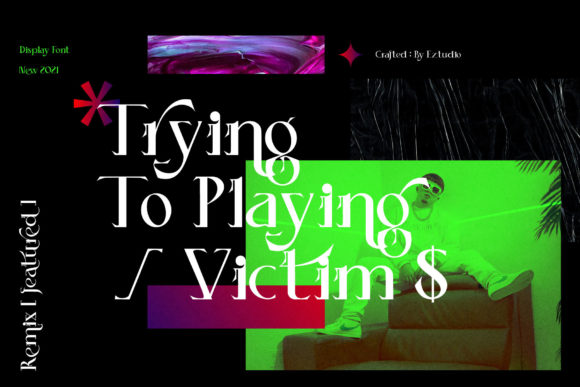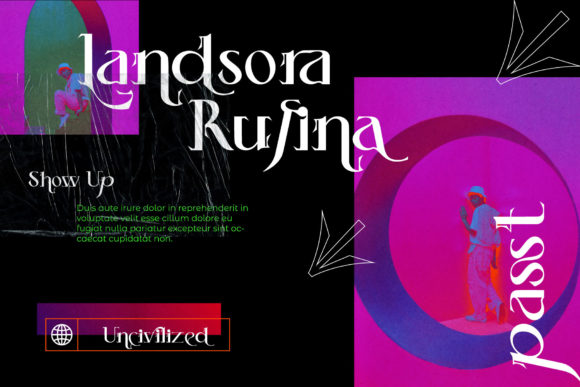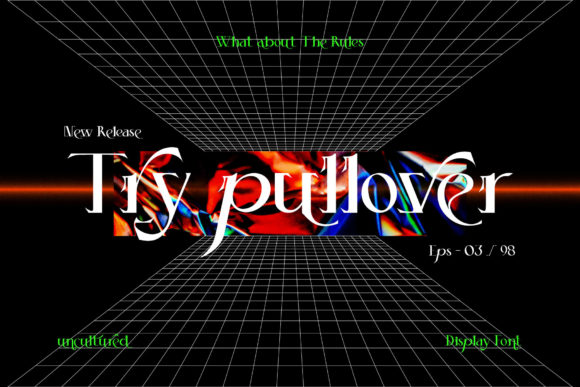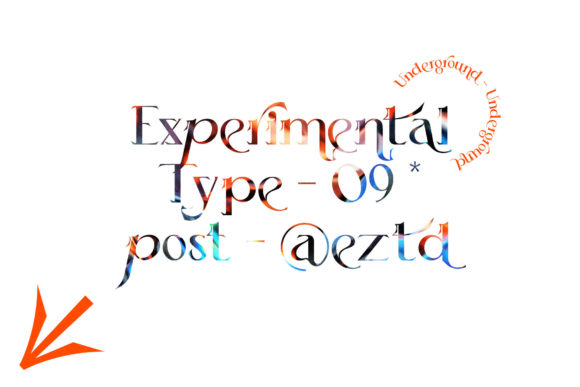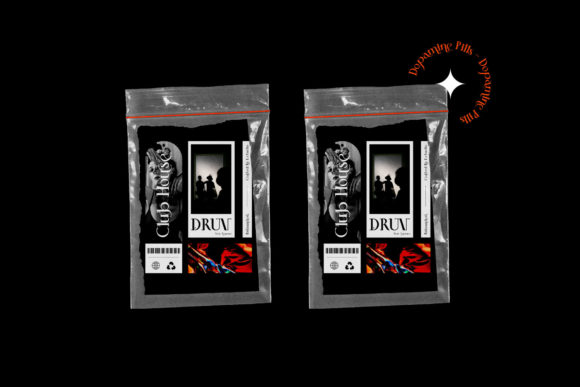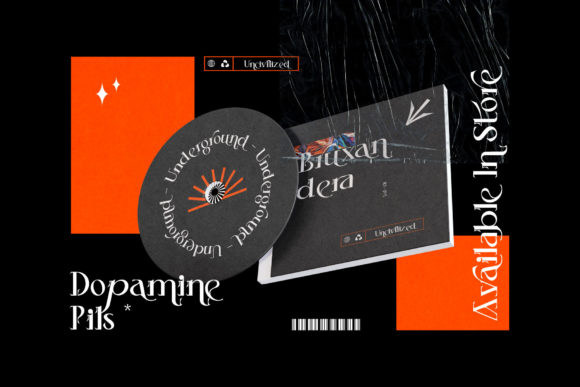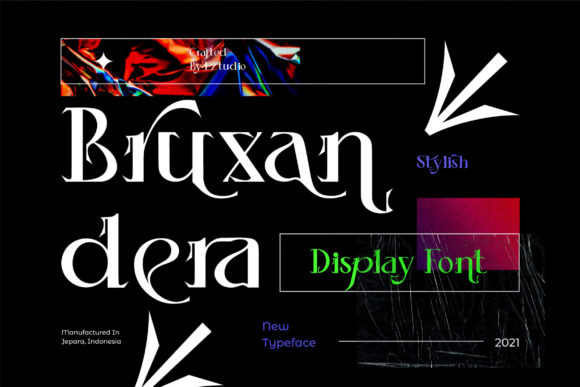
Bruxandera Font: Elevate Your Designs with a Cool, Detailed, and Chic Display Font
In the world of typography, a font can make or break a design. It’s the foundation upon which the entire visual aesthetic is built. For designers and crafters looking to elevate their creative projects, the Bruxandera font is an exceptional choice. Described as a cool, detailed, and chic display font, Bruxandera is masterfully designed to become a true favorite among typography enthusiasts. With its unique blend of style and versatility, this font has the potential to bring each of your creative ideas to the highest level.
What Makes Bruxandera Stand Out?
Bruxandera’s standout feature is its intricate design. Every letter is crafted with precision, offering a level of detail that is hard to find in other display fonts. This attention to detail gives Bruxandera a distinctive look that can add a touch of sophistication to any project. Whether you’re working on a logo, a poster, a website header, or any other design that requires a statement piece, Bruxandera is up to the task.
One of the key benefits of using Bruxandera is its versatility. This font isn’t just limited to one or two specific design styles. Instead, it can seamlessly integrate into a wide range of projects, from modern digital designs to more traditional print materials. Its chic appearance makes it perfect for luxury brands, fashion magazines, and high-end product packaging. At the same time, its cool and detailed nature ensures it can also work well in more casual or creative contexts, such as posters, flyers, and social media graphics.
Enhance Your Creative Ideas
For designers and crafters, finding the right font can often be a challenge. You might have a clear vision of what you want to achieve, but struggle to find a font that matches your creative vision. Bruxandera aims to change that. With its unique design and versatile application, it can help bring your creative ideas to life. Whether you’re looking to create something modern and trendy or classic and elegant, Bruxandera provides the perfect foundation.
Why Choose Bruxandera?
There are several reasons why Bruxandera should be your go-to font for your next design project:
- Unique Design: Its detailed and intricate design sets it apart from more generic fonts.
- Versatility: Suitable for a wide range of design projects, from digital to print.
- Chic Appearance: Adds a touch of elegance and sophistication to any design.
- Easy to Read: Despite its detailed nature, Bruxandera remains clear and easy to read, making it perfect for display text.
How to Use Bruxandera Effectively
To get the most out of Bruxandera, consider the following tips:
- Pair it with Simpler Fonts: For body text, pair Bruxandera with simpler, easier-to-read fonts to create contrast and visual interest.
- Experiment with Sizes and Colors: Don’t be afraid to play around with different sizes and colors to find the perfect combination for your design.
- Use it Sparingly: Given its detailed nature, Bruxandera works best when used sparingly. Use it for headlines or key messages to draw attention.
Bruxandera is more than just a font; it’s a design statement. Its cool, detailed, and chic appearance makes it an excellent choice for designers and crafters looking to elevate their projects. With its versatility and unique design, Bruxandera has the potential to bring your creative ideas to new heights. Whether you’re working on a professional project or a personal craft, incorporating Bruxandera into your design toolkit can open up a world of possibilities.
So, why settle for ordinary when you can create something extraordinary with Bruxandera? Dive into the world of typography with a font that promises to make your designs stand out. Explore Bruxandera today and discover how it can transform your creative projects.